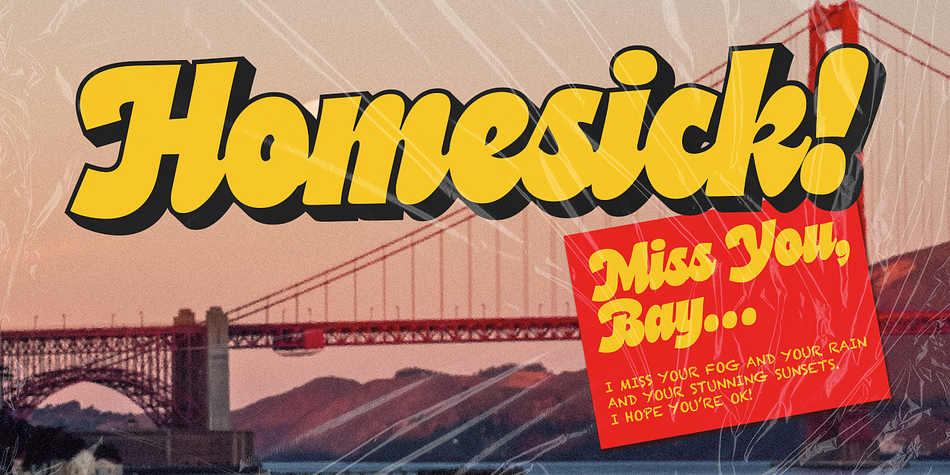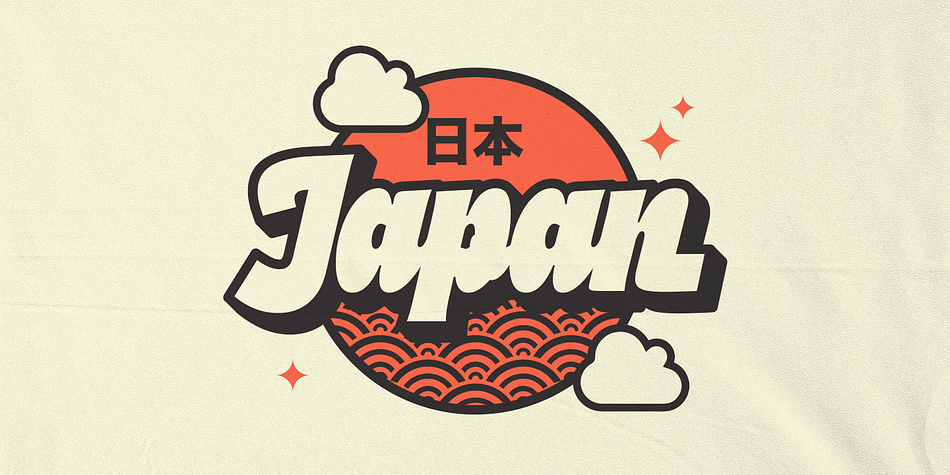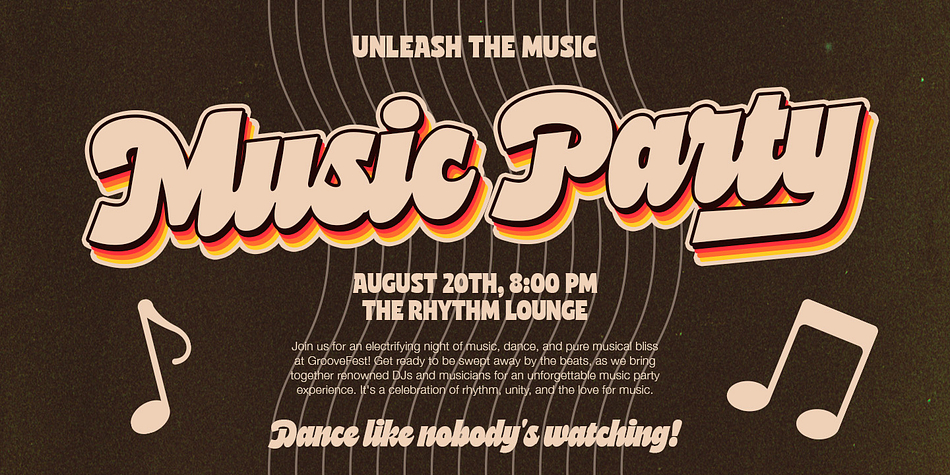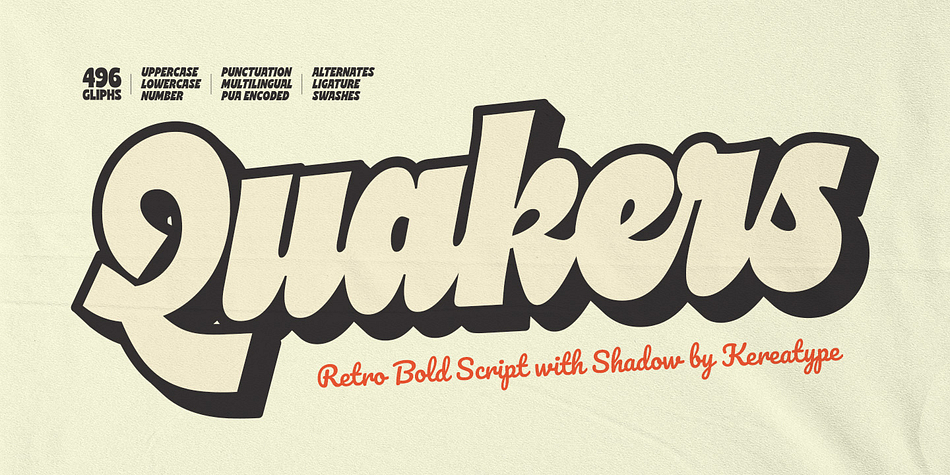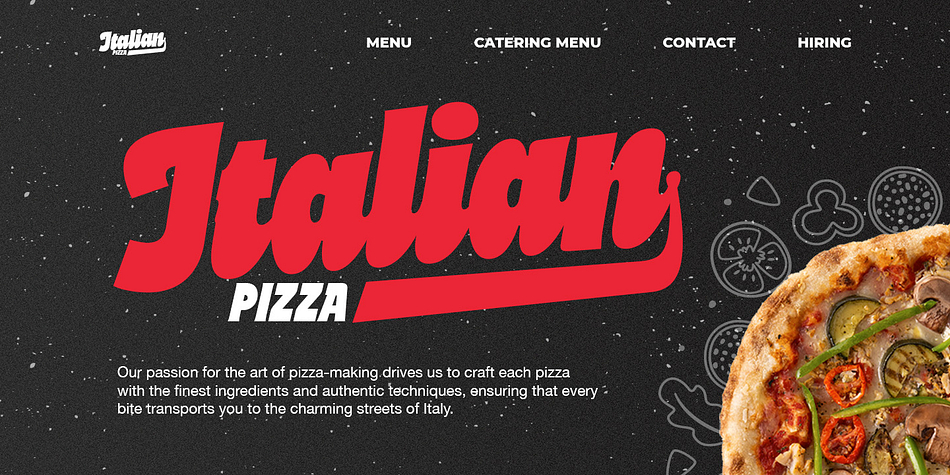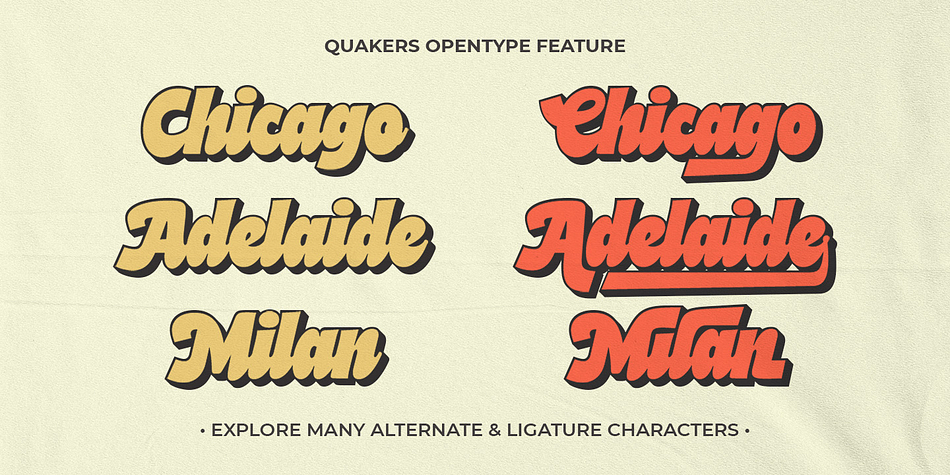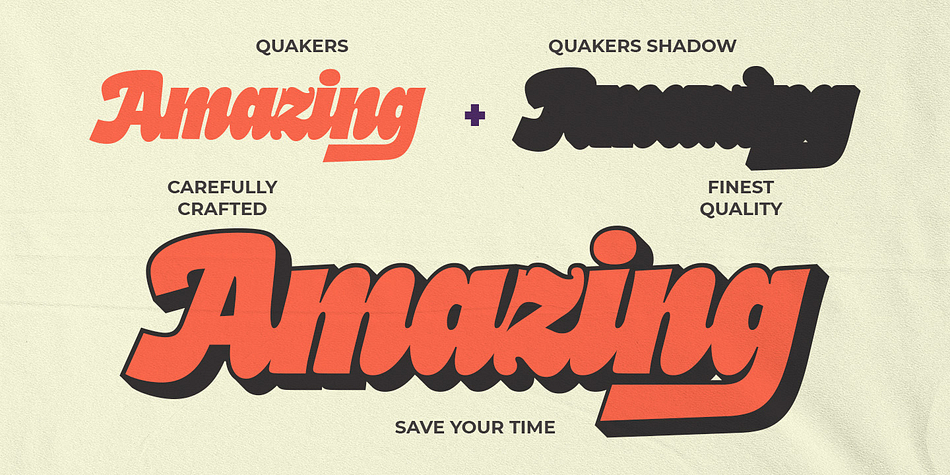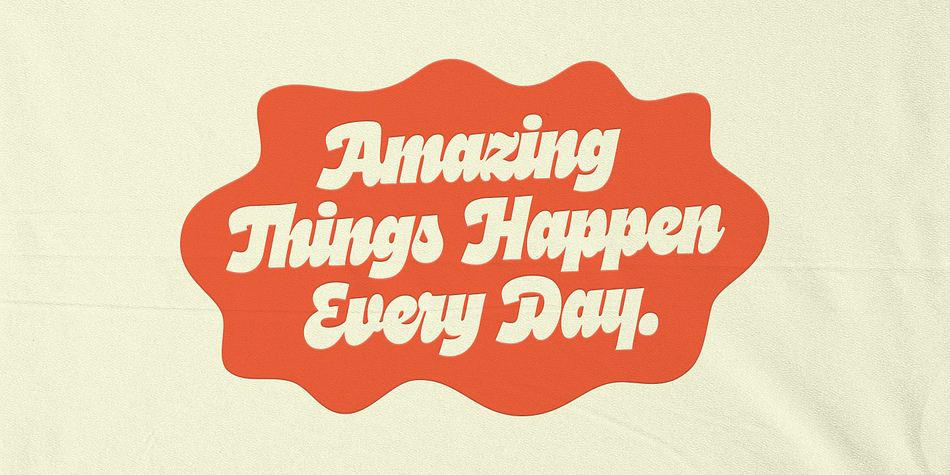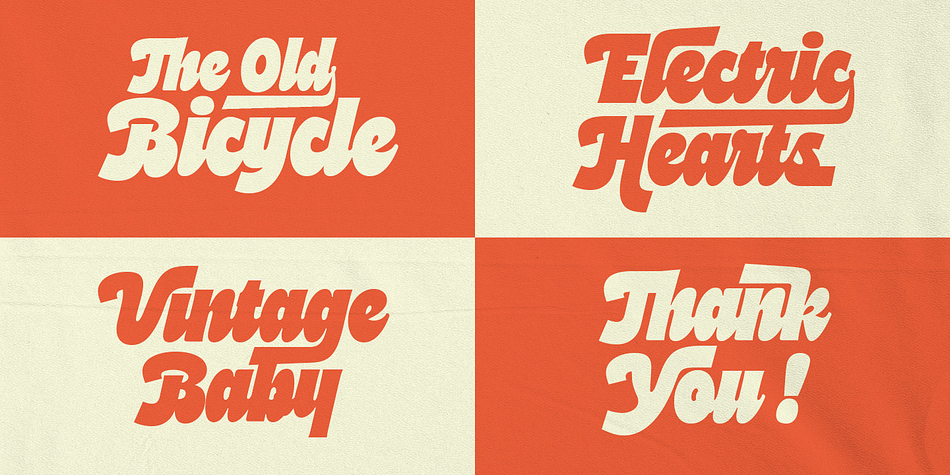
Quakers
Quakers is a brush script font family. This typeface has two styles and was published by Kereatype.
Quakers is the evolution of our previous font, ‘Cuanky,’ in its italic version,transformed into a captivating script typeface. Embracing the essence of retro design, Quakers exudes an aura of vintage elegance combined with modern boldness and elegance.
Quakers is equipped with a font shadow that will make it easier and save you time in creating typography works like: Vintage branding craft logos, Brand identities with nostalgic charm, retro themed businesses,  invitations for weddings, parties, or events, eye-catching design posters, banners, and signage that stand out, Product packaging into retro masterpieces to your labels and boxes.
Quakers is more than just a font; it’s a journey back in time, a fusion of boldness and vintage aesthetics that elevate your designs to new heights. Experience the allure of Quakers and infuse your projects with the magic of retro elegance! Create stunning designs that will transport you back in time.